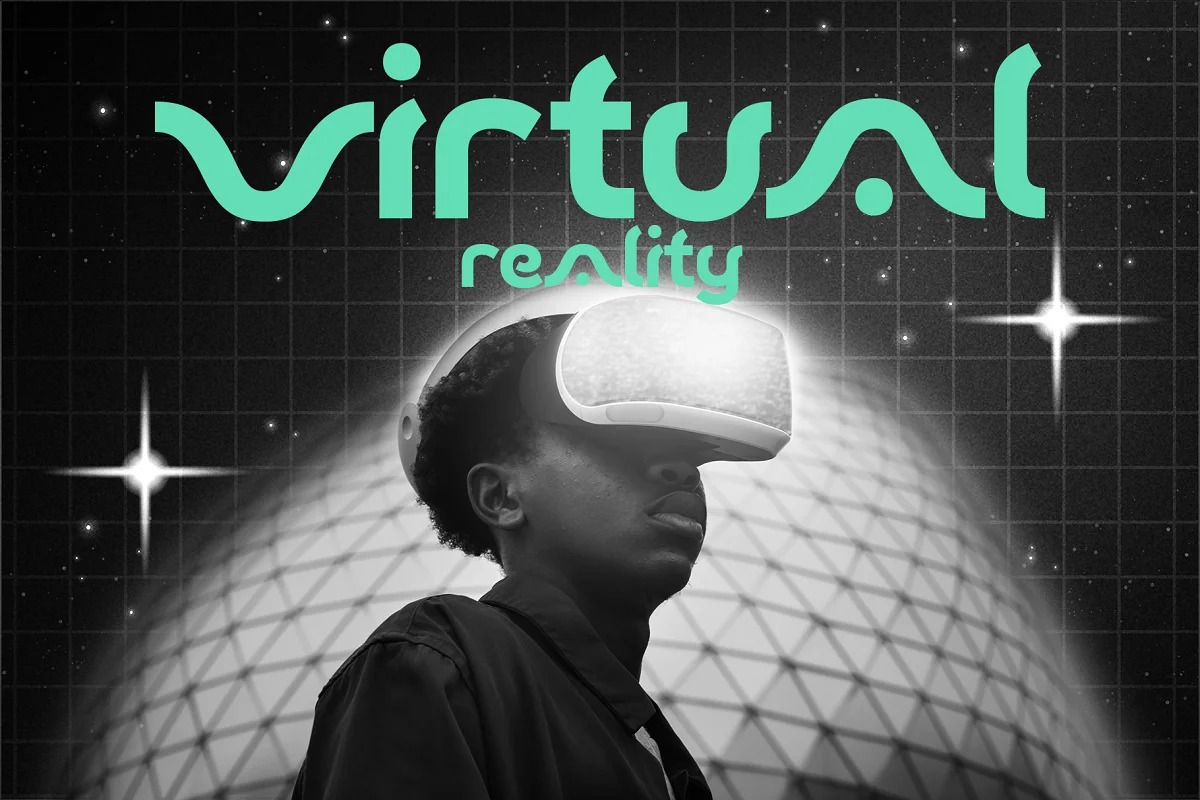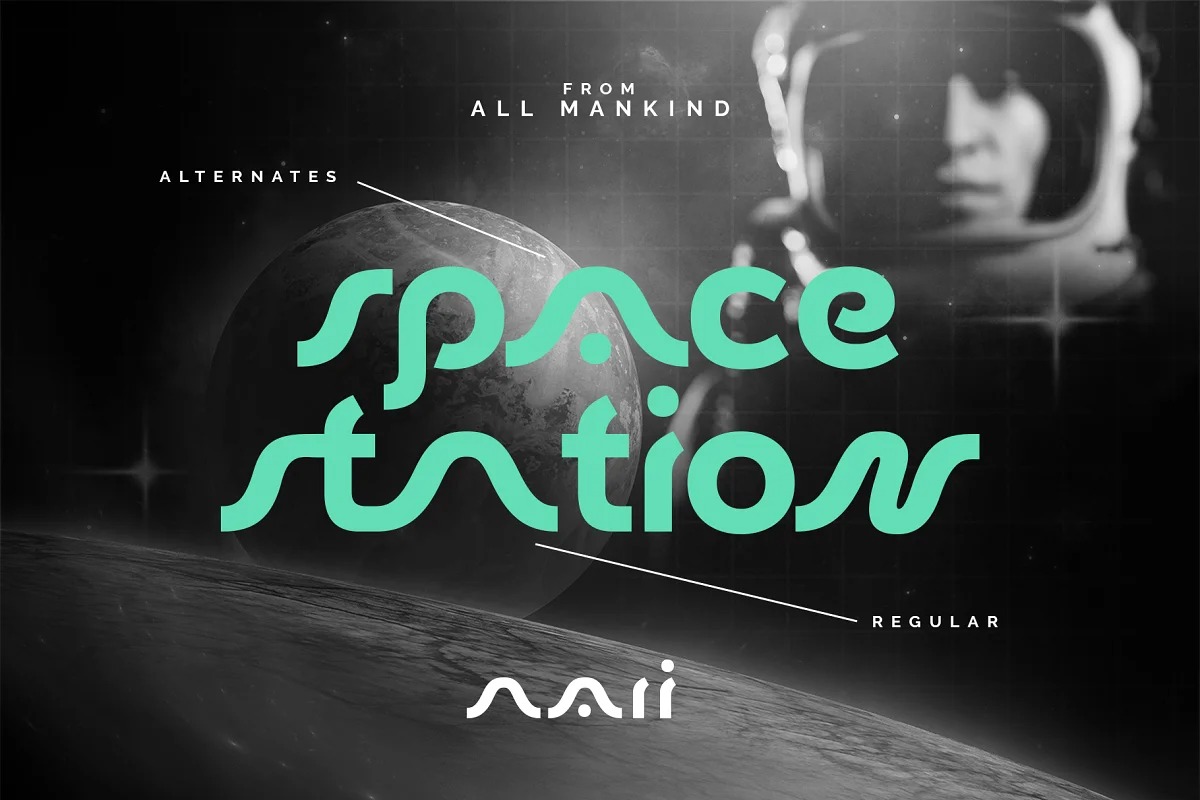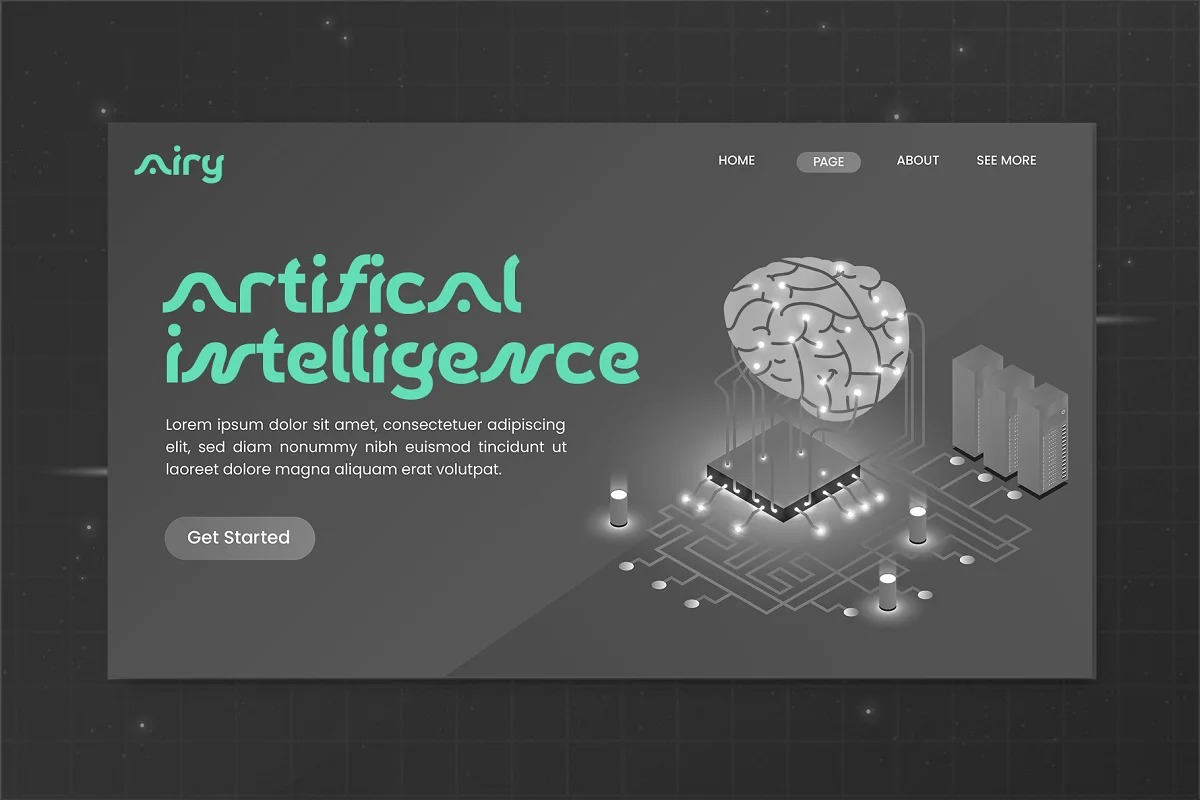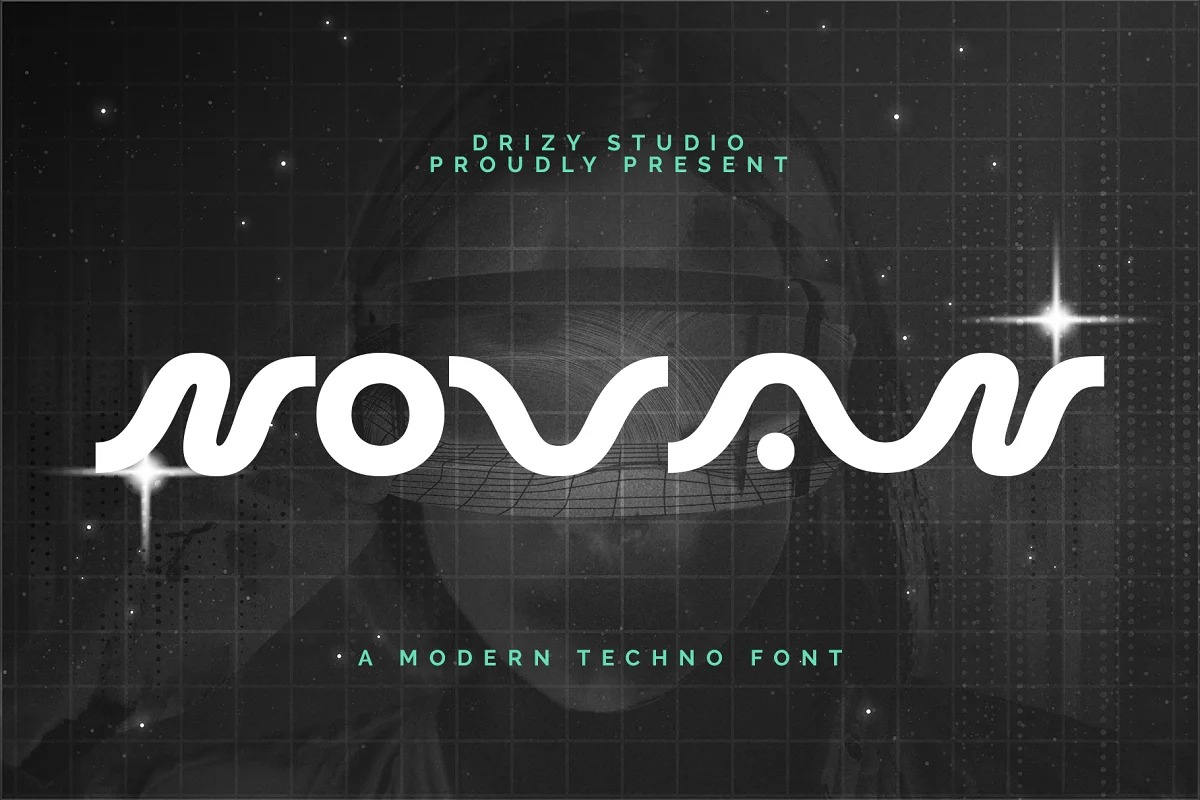
Novan Font
Novan Display Font
This is a techno-based typeface with fancy rounded shape that will make your design looks hi-tech and trendy. Novan is great for creating eye-catching headlines, logo, applicable for any type of graphic design web, print, motion graphics, perfect for t-shirts and other items.